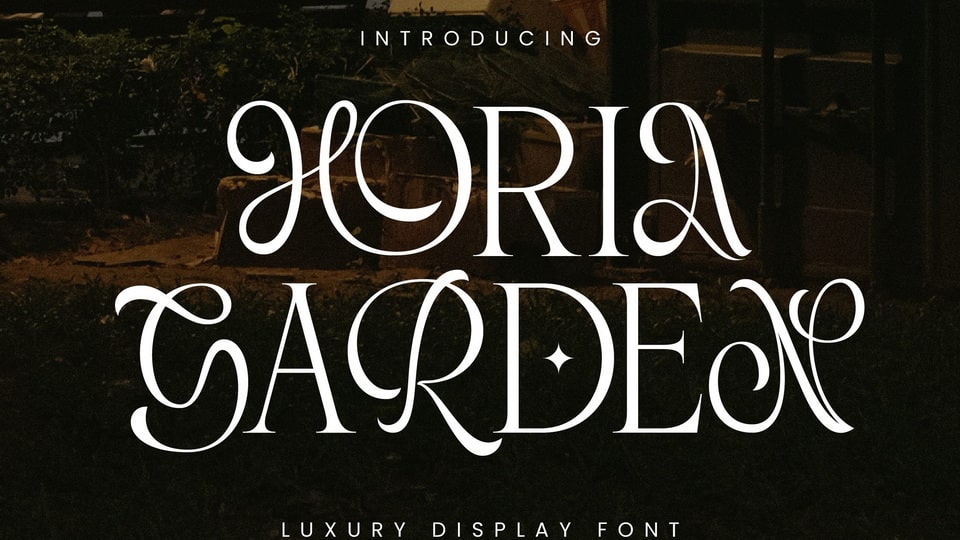
Download Horia Garden font, a luxury serif display typeface designed to bring a sense of refined elegance and artistic charm to the world of food and lifestyle branding.